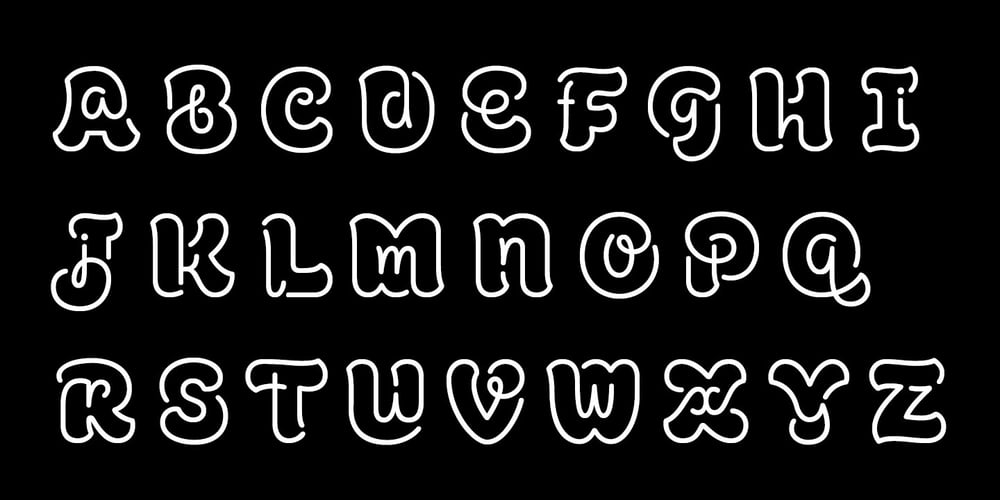
ALS Lamon
ALS Lamon font
ALS Lamon Font Family was designed by Dmitry Lamonov and published by Art. Lebedev Studio. ALS Lamon contains 1 styles and family package options. Lamon is a soft-natured display typeface. It looks best when used for short words and succinct phrases. Lamon’s outlined glyphs are made of both uppercase and lowercase letters with the smaller letters hiding inside the bigger ones. The face’s smooth lines give street signs, packaging and decorative materials a friendly lightness, while the unexpected contrast involves the viewer in an interesting optical game. Lamon is a perfect typeface for neon signs. In addition to Cyrillic and Latin letters, Lamon includes a set of useful characters and currency signs.